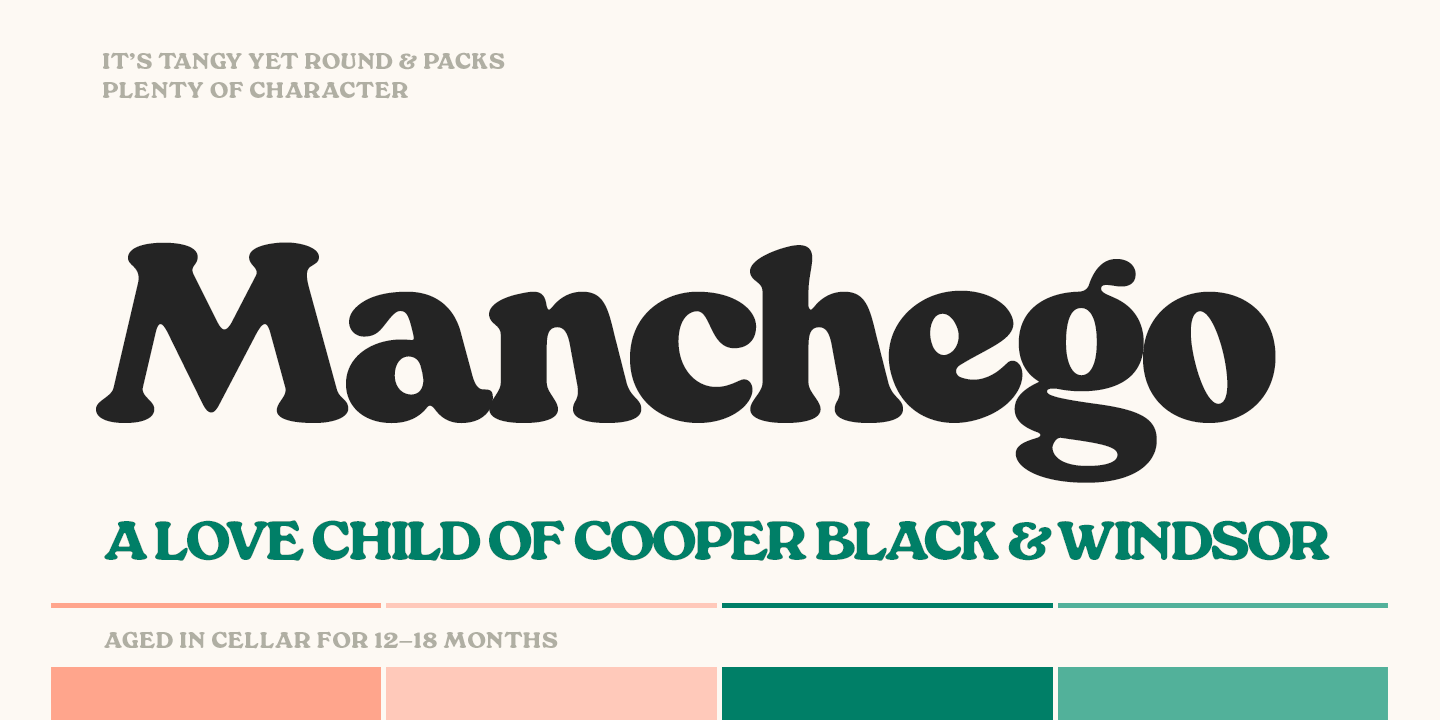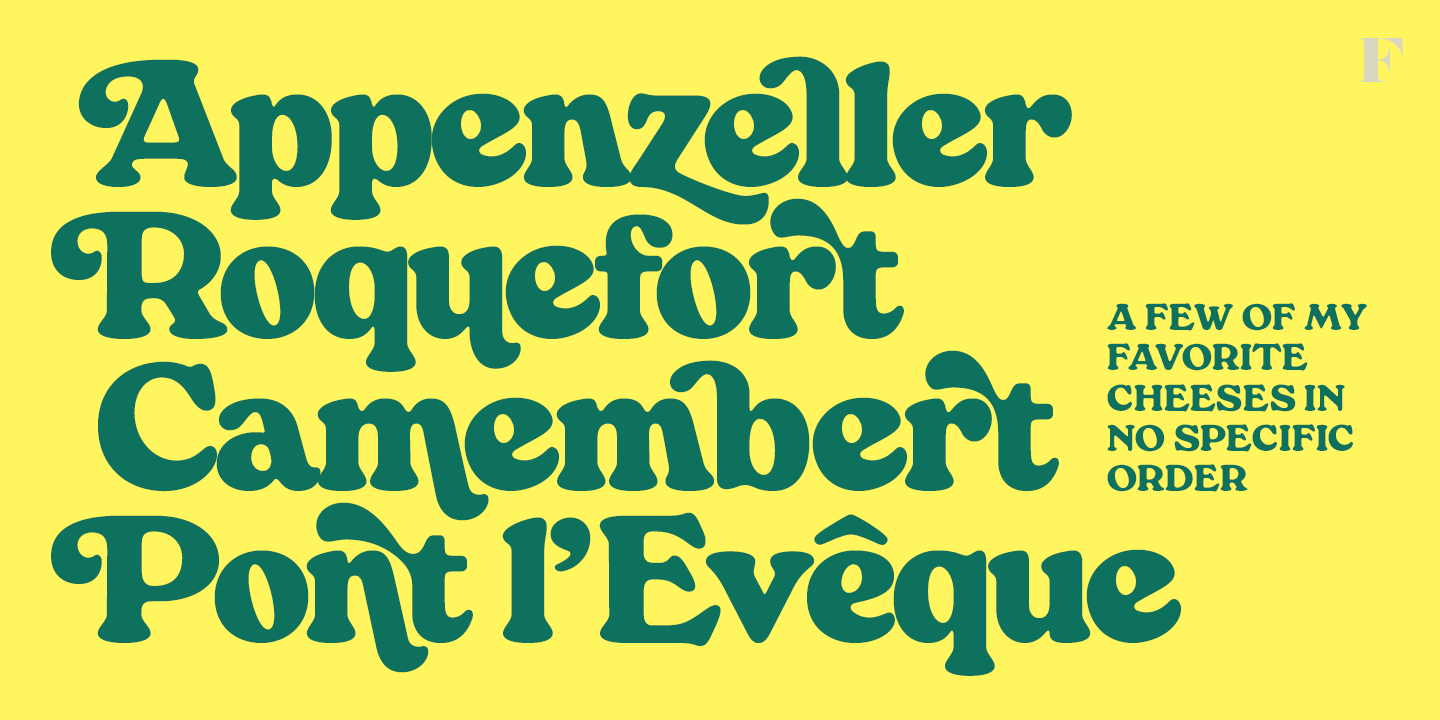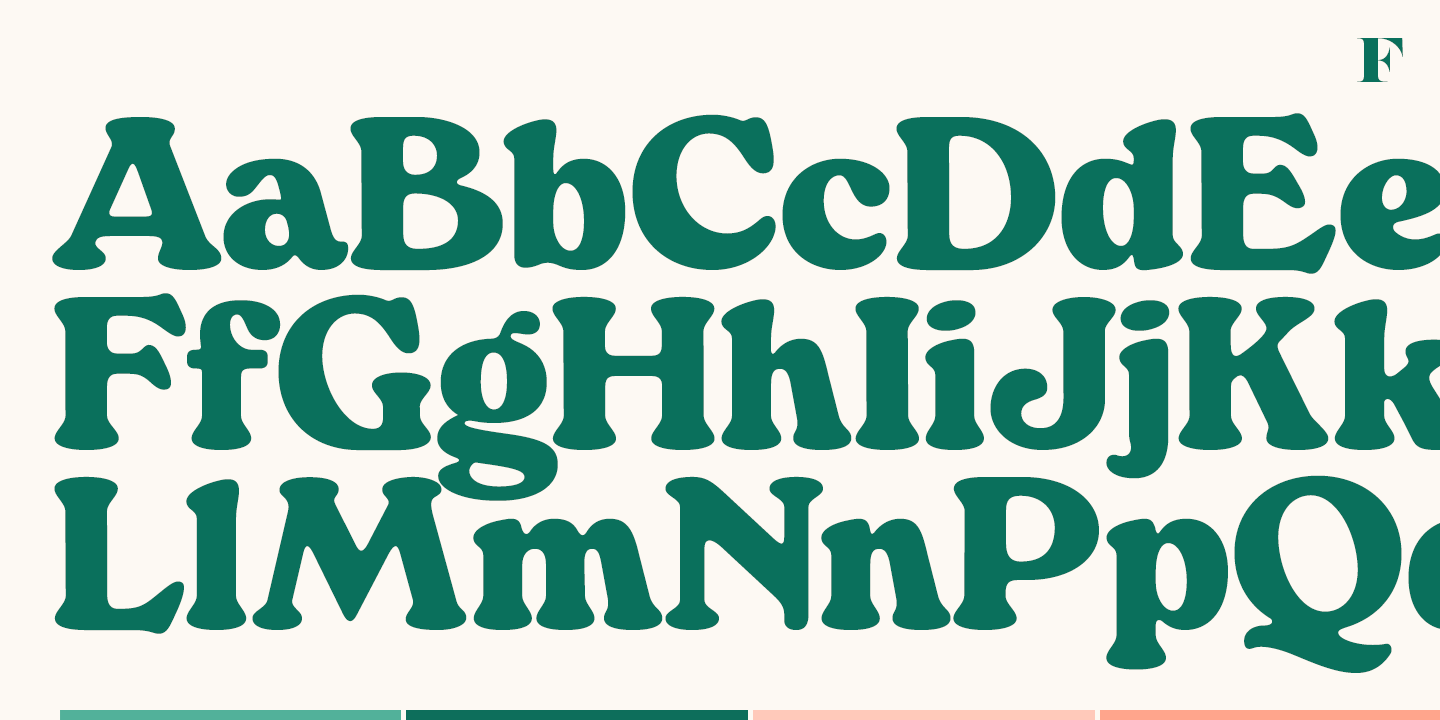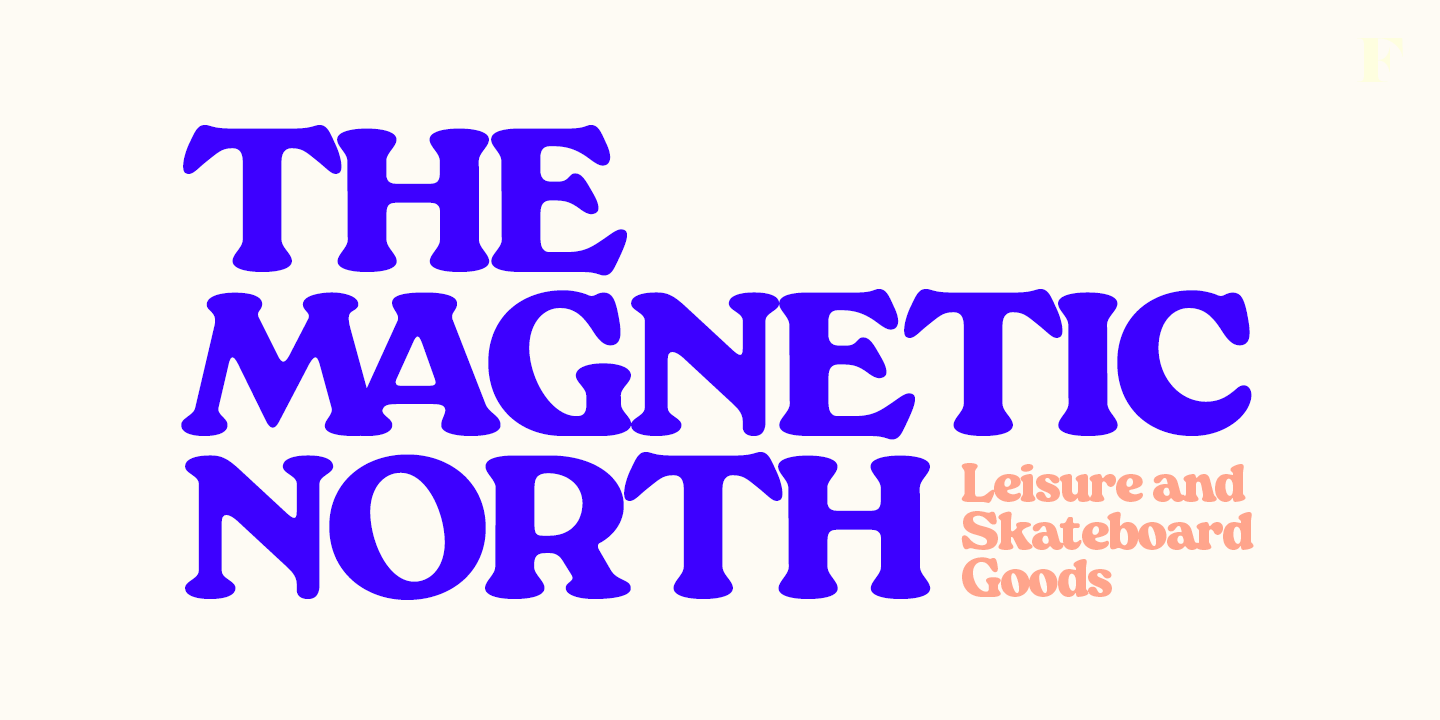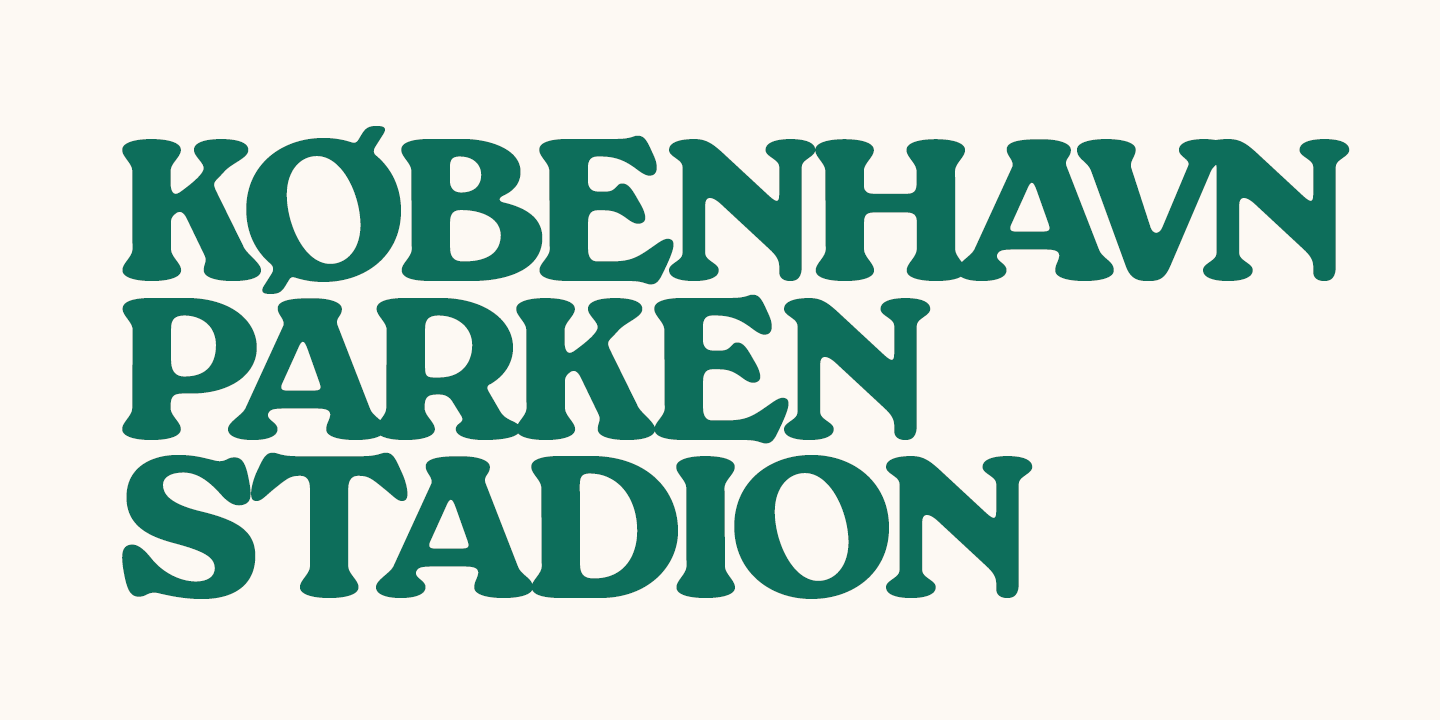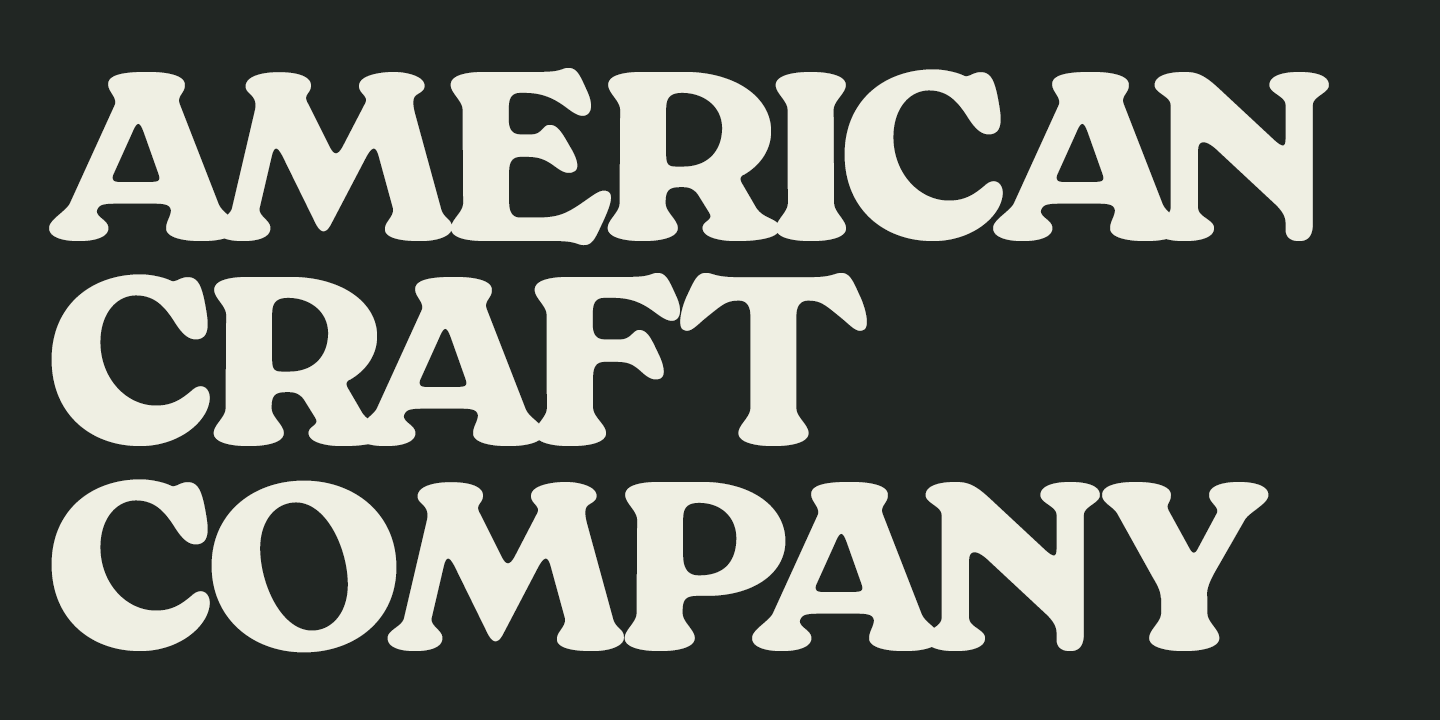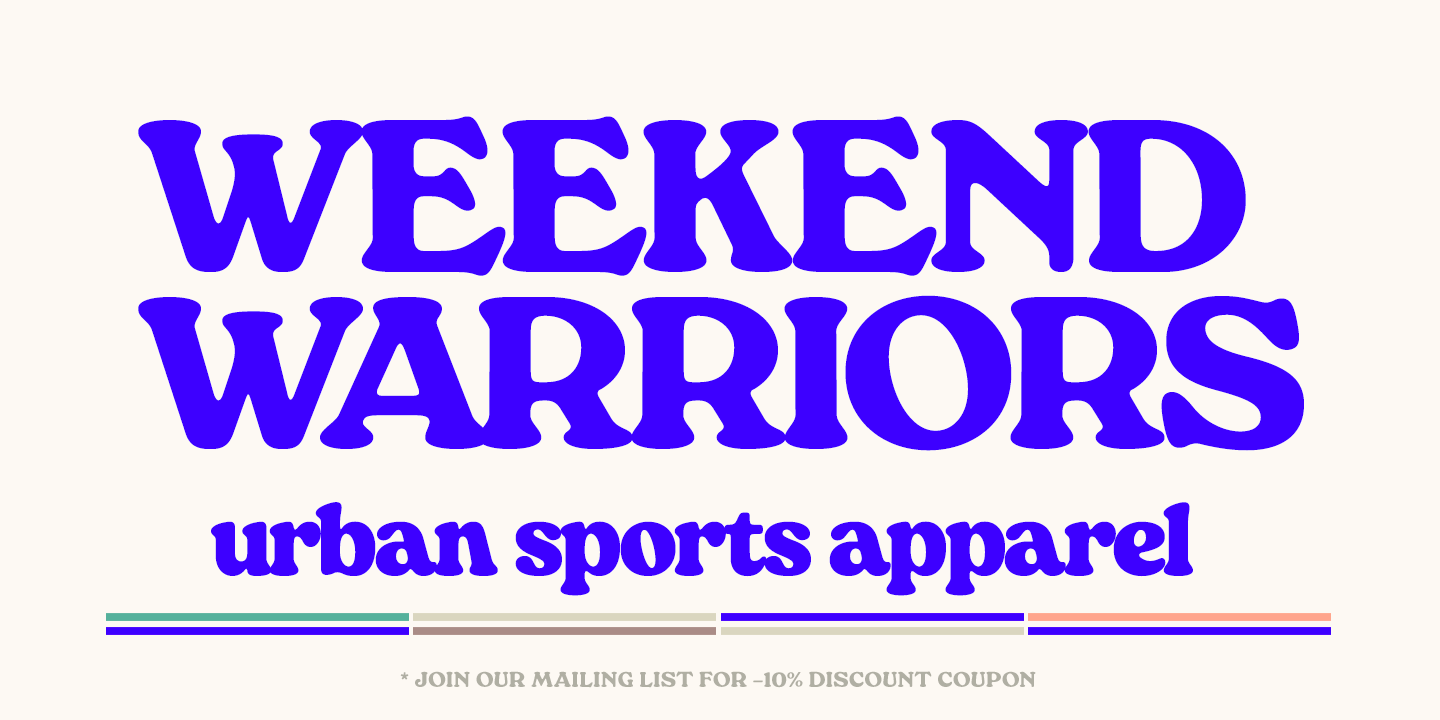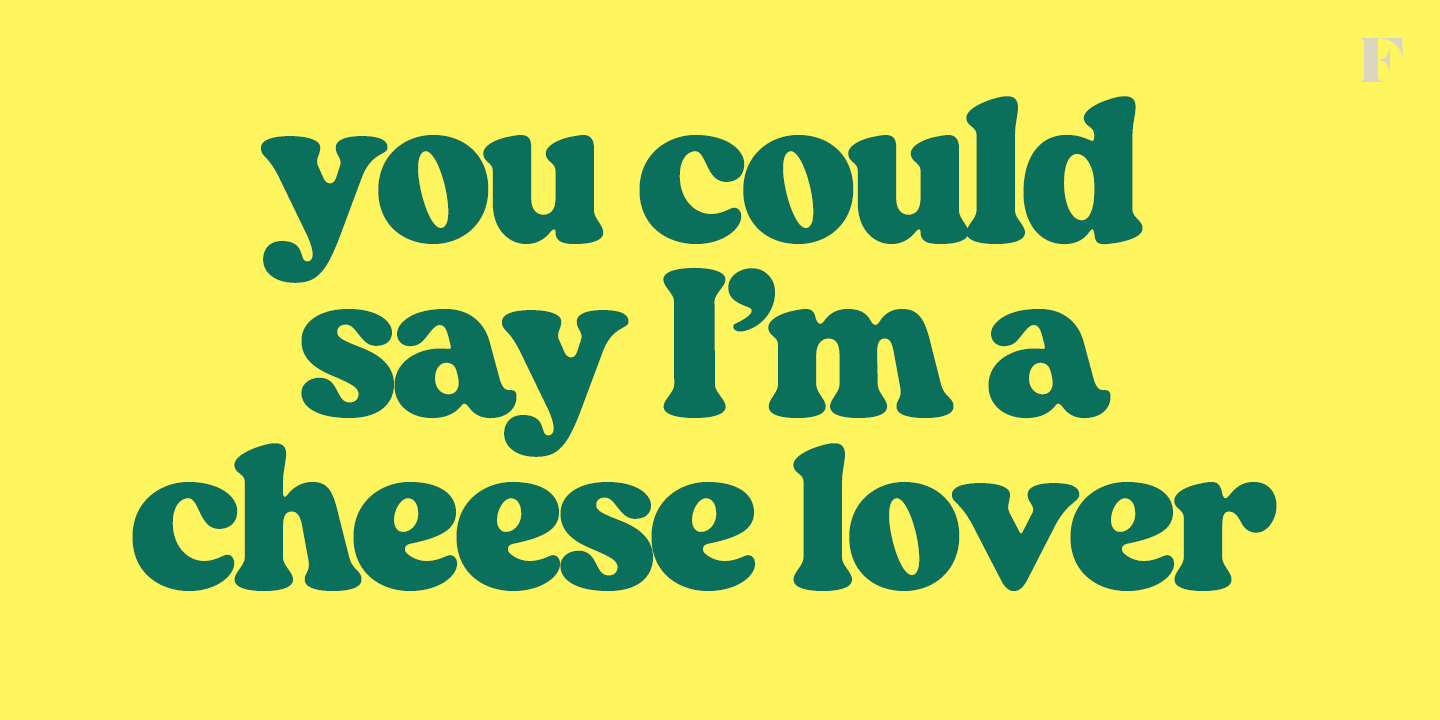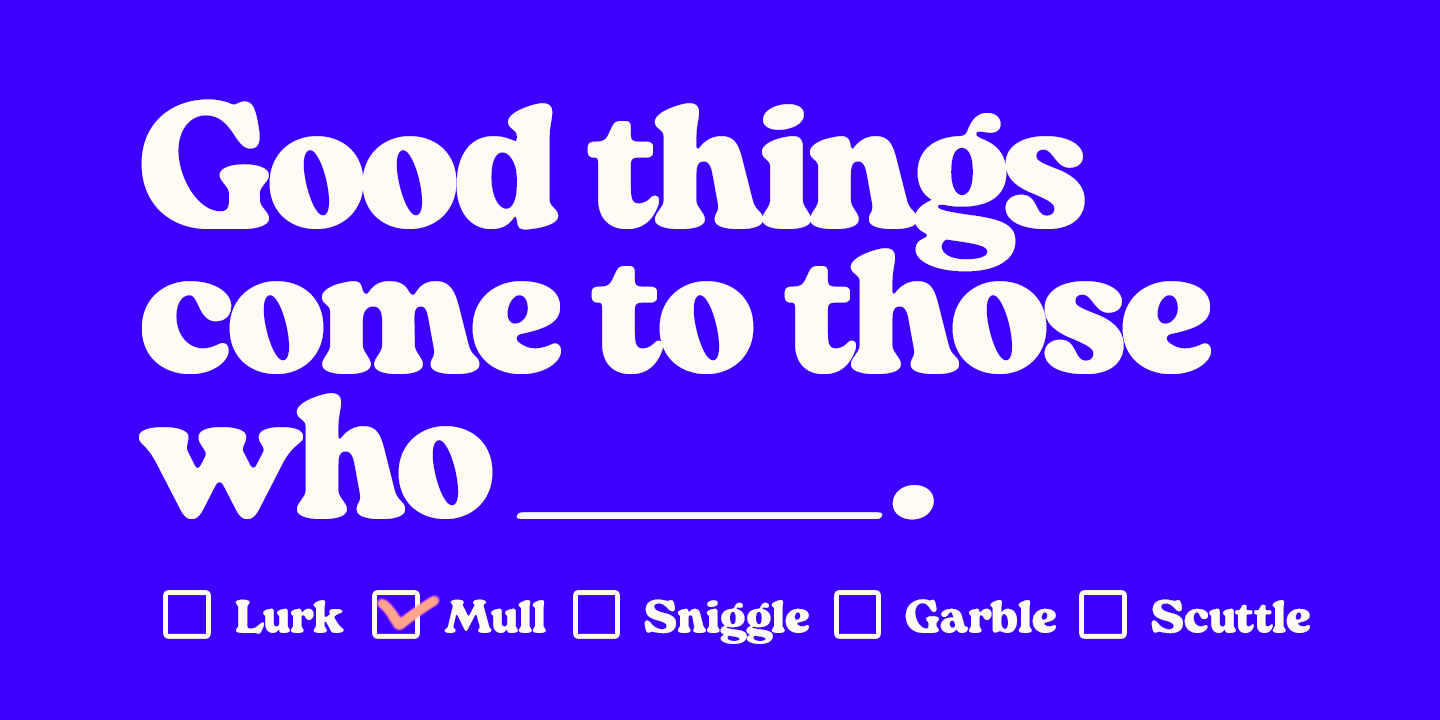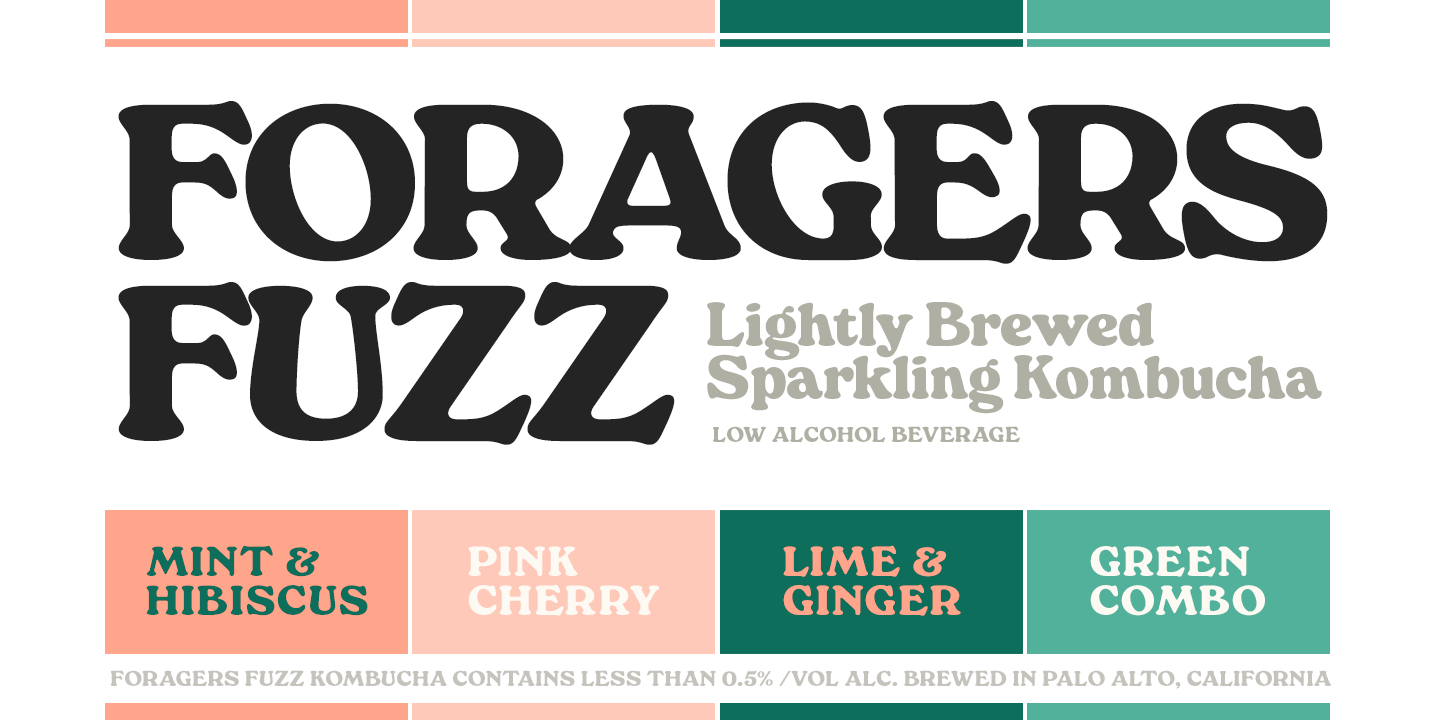
Manchego
Font Family by Fenotype
What do you get when you mix iconic Cooper Black from 1922 with an even older font, equally iconic Windsor from 1905? Well of course, you get Manchego!
Manchego combines the best of both: the plump features and serifs from Cooper with seriously bold forms, such as the oversized bowl of R, peg-legged N, pinched U and leaning a, h, m & n giving it an adorable retro-appeal. With these distinguishable features Manchego works extremely well with illustrations or can actually be used as an illustration per se.
Despite its vintage charm, Manchego is fully equipped with modern OpenType features. Standard ligatures help with certain difficult character combinations. In addition Manchego sports Swash, Titling & Stylistic Alternates that can be deployed for more original look.
Try Manchego with a bit tighter kerning for more 70s feel.